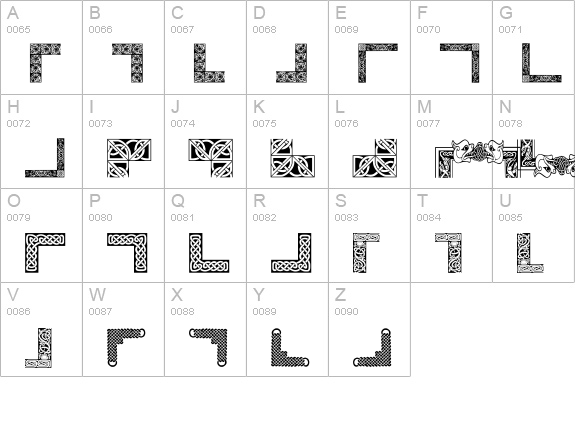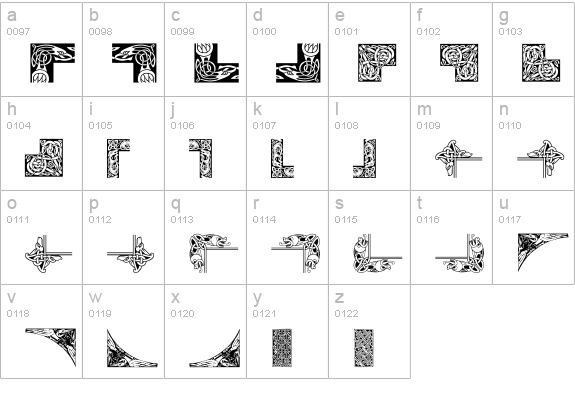
Celtic Frames Font Details
Celtic Frames font is a beautifully intricate and ornate typeface that draws inspiration from traditional Celtic design elements. Each character is adorned with intricate knots, loops, and swirls, creating a unique and eye-catching look. This font is perfect for adding a touch of elegance and mystique to your projects, whether you're designing invitations, posters, or branding materials. The Celtic Frames font is available for free download at FontsMarket.com, making it easily accessible for anyone looking to add a touch of Celtic flair to their designs. Whether you're a professional designer or a hobbyist looking to experiment with new fonts, Celtic Frames is sure to inspire and elevate your creative projects. Download this stunning font today and let your imagination run wild with its intricate beauty.